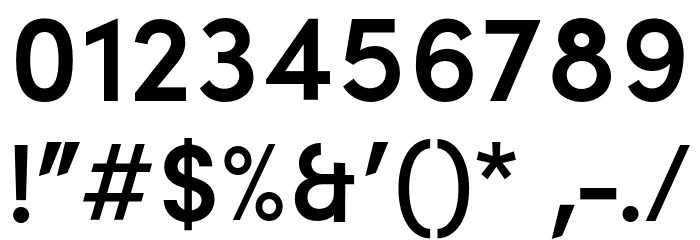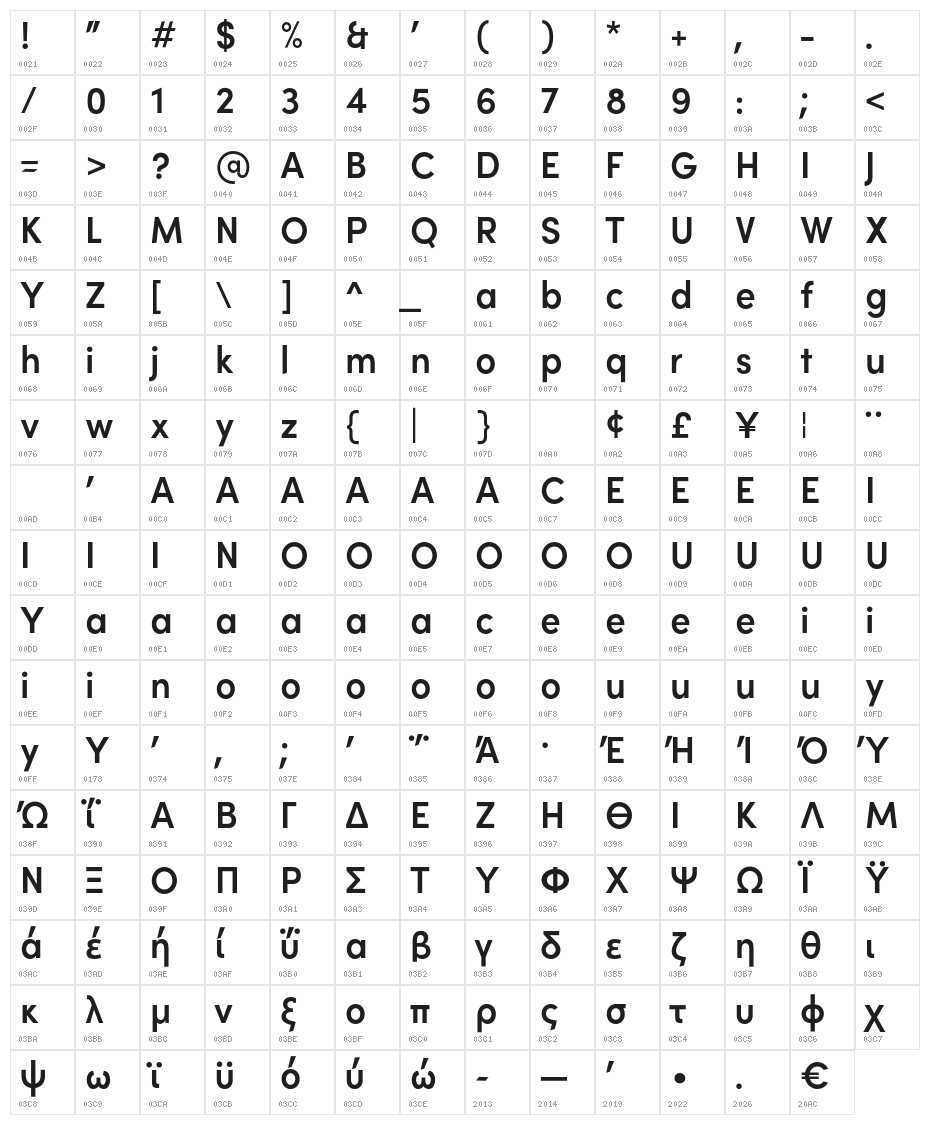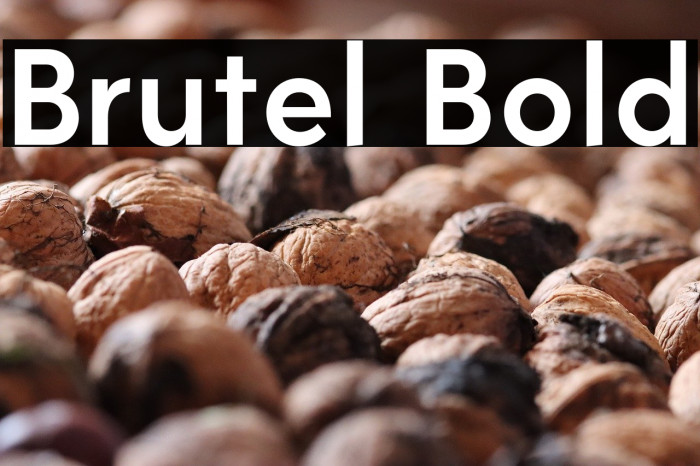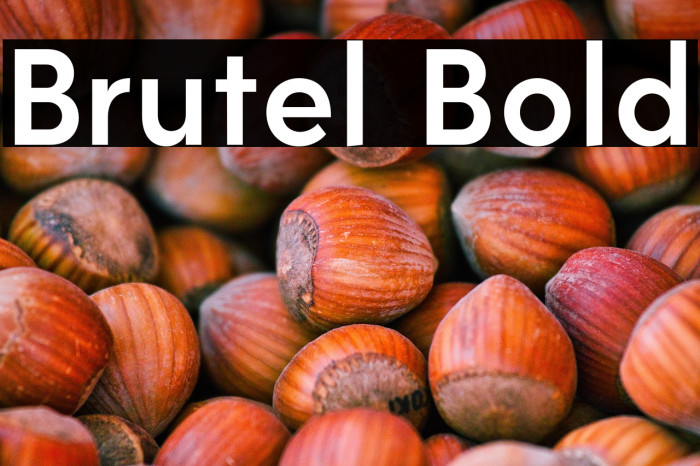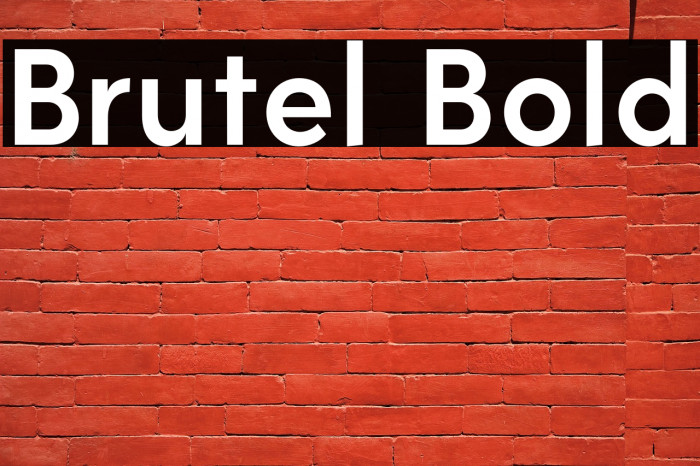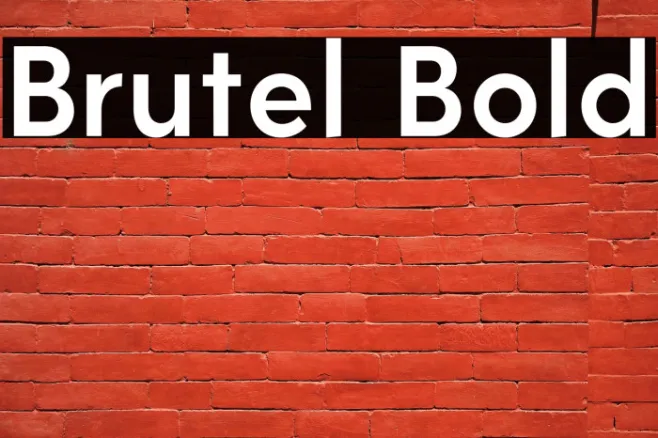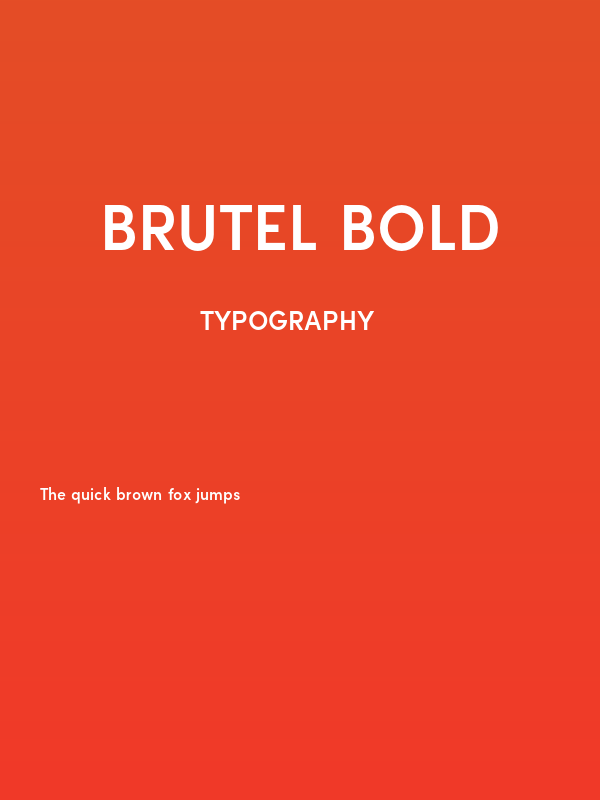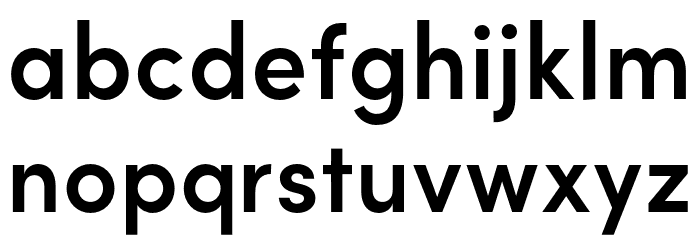
Brutel Bold Font
Brutel Bold Description
This font features a bold and modern sans-serif design, characterized by clean lines and a strong presence. The uppercase and lowercase letters are well-proportioned, offering a harmonious balance that enhances readability. The numerals are clear and distinct, making them suitable for a variety of applications. The special characters are designed with the same attention to detail, ensuring consistency across all glyphs. This font's bold weight and normal width make it versatile for both digital and print media.
| Proposed Projects | Ideal for branding, advertising, headlines, and digital content where a modern and bold statement is needed. |